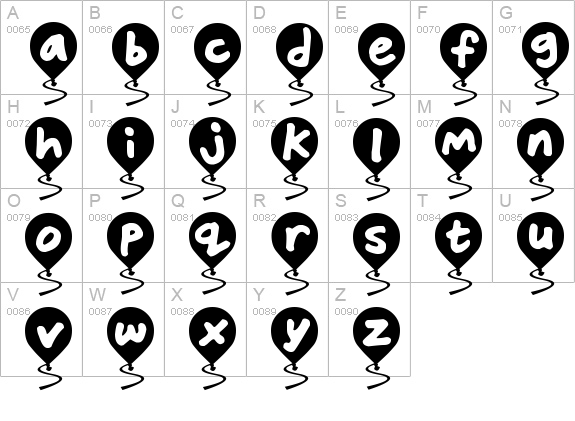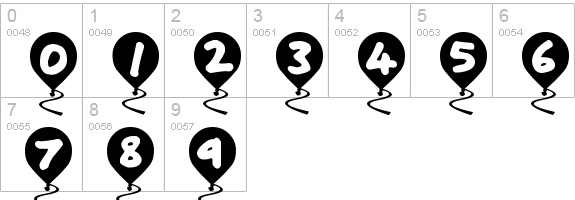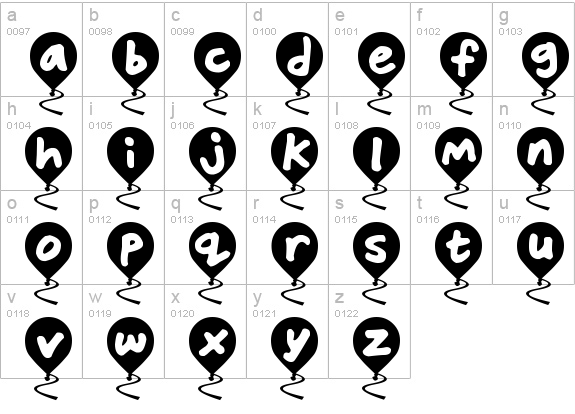
Introducing Baloon Floats font, a whimsical and playful typeface that will add a touch of fun to any design project. The Baloon Floats font features rounded edges and a bubbly appearance, making it perfect for invitations, greeting cards, posters, and more. With its unique charm and eye-catching style, Baloon Floats is sure to make your text stand out.